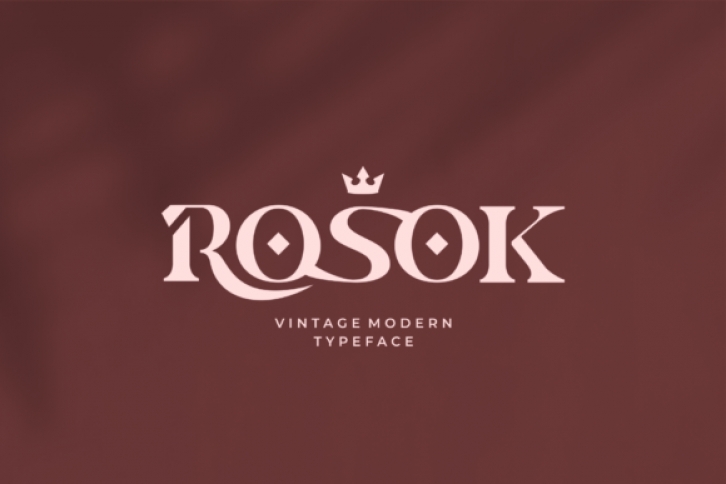
Rosok is a modern vintage serif font with a perfect fit for many projects such as: magazines, logos, branding, photography, invitations, wedding invitation, quotes, blog header, poster, advertisements, postcard, book, websites, titles and so many more.